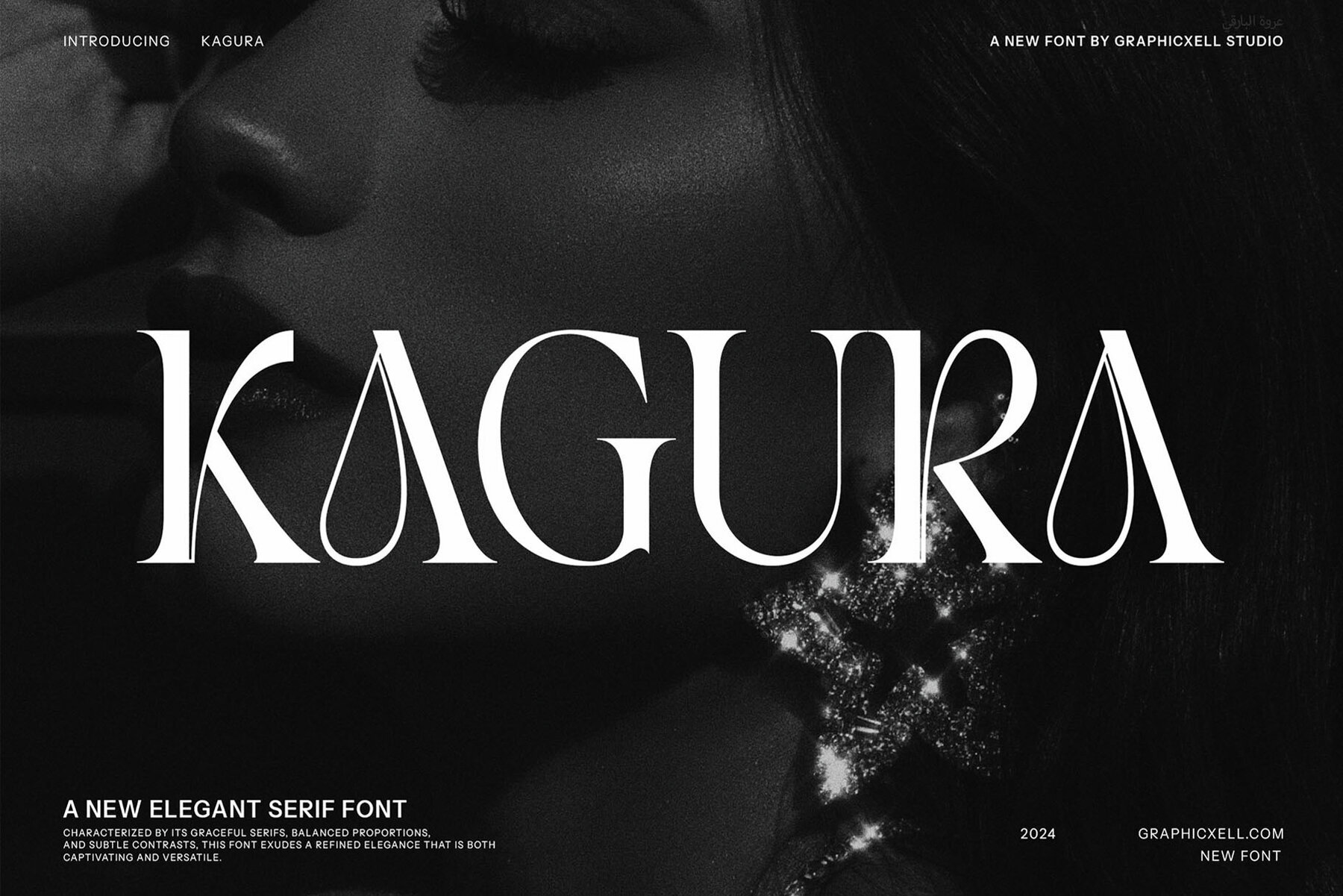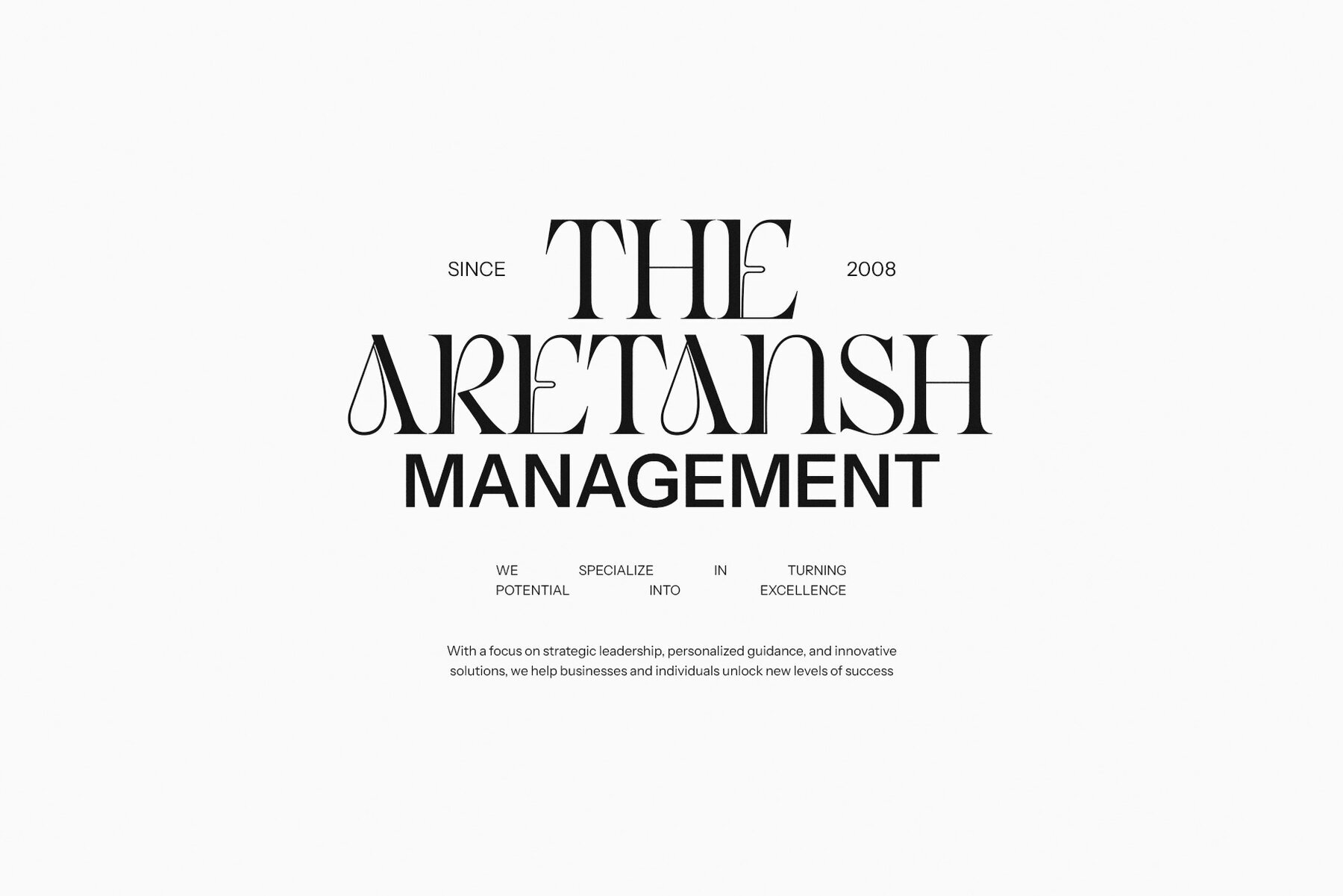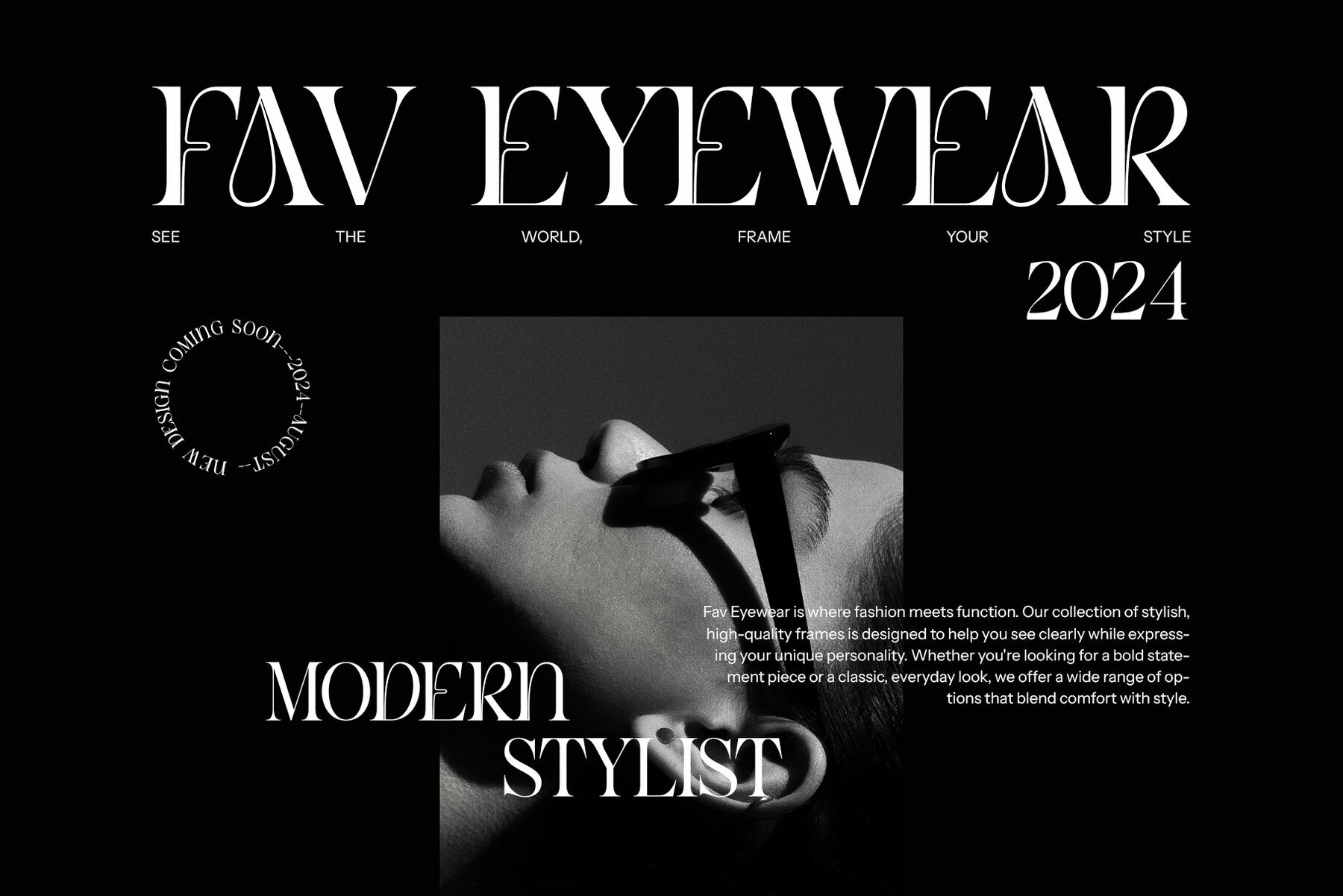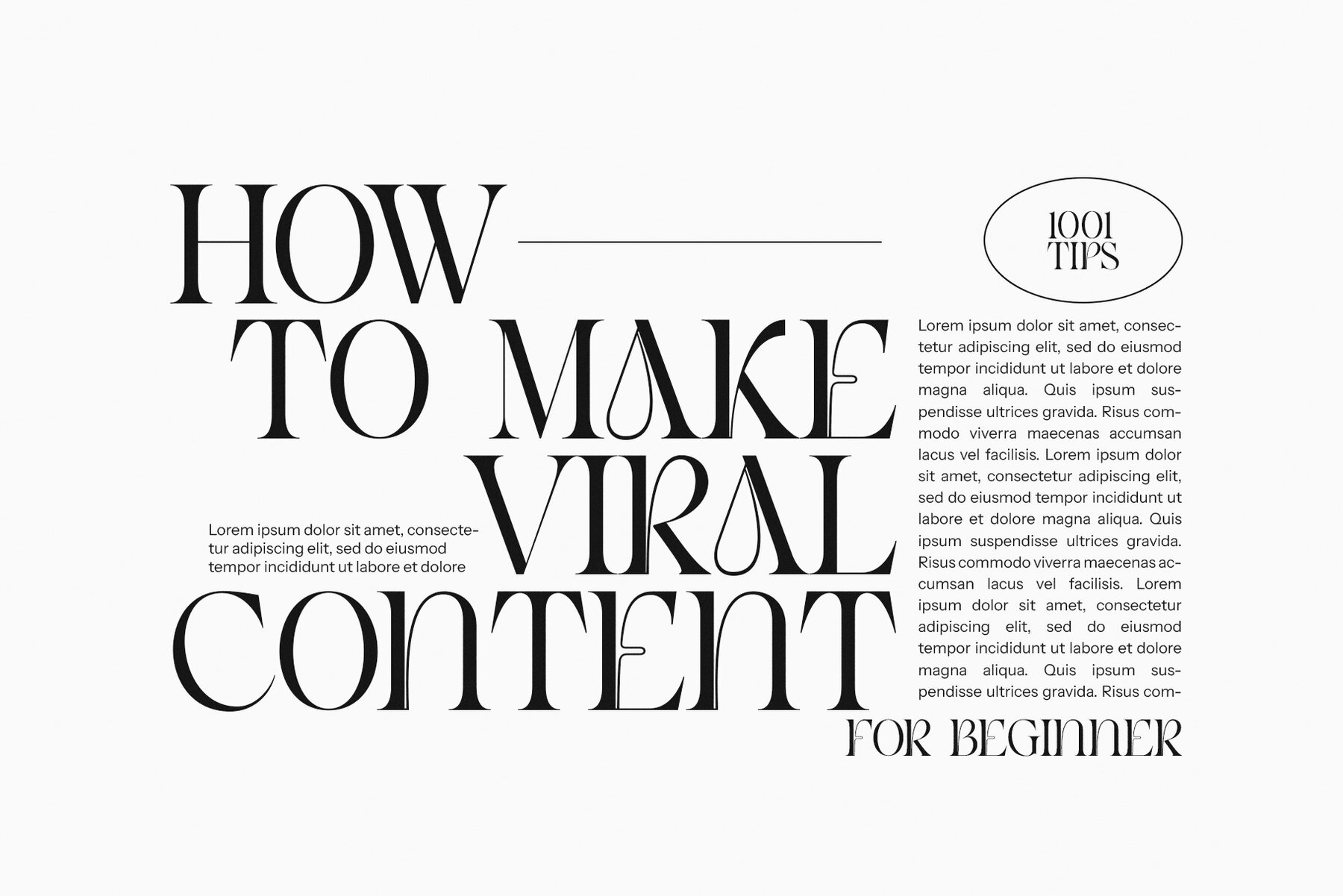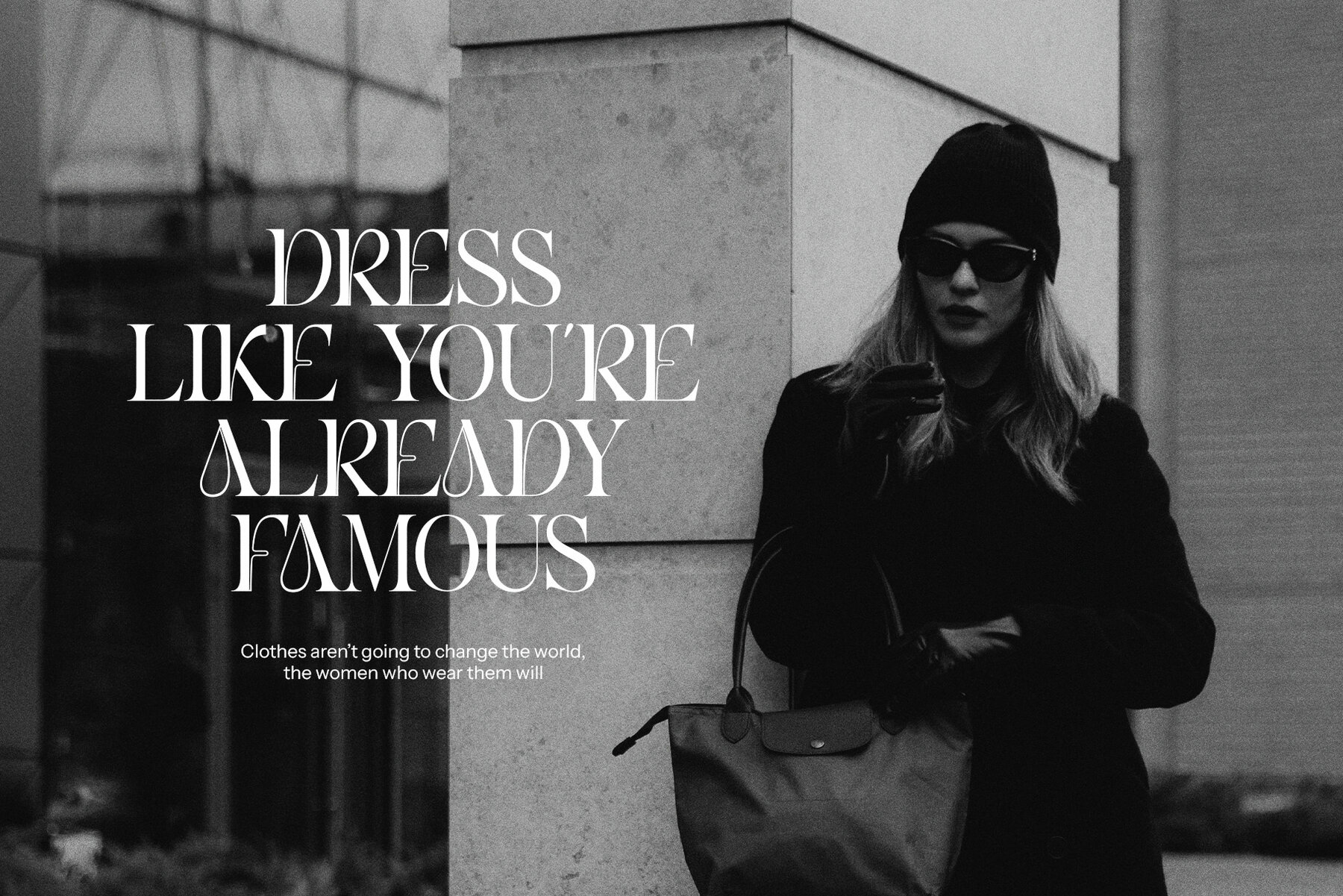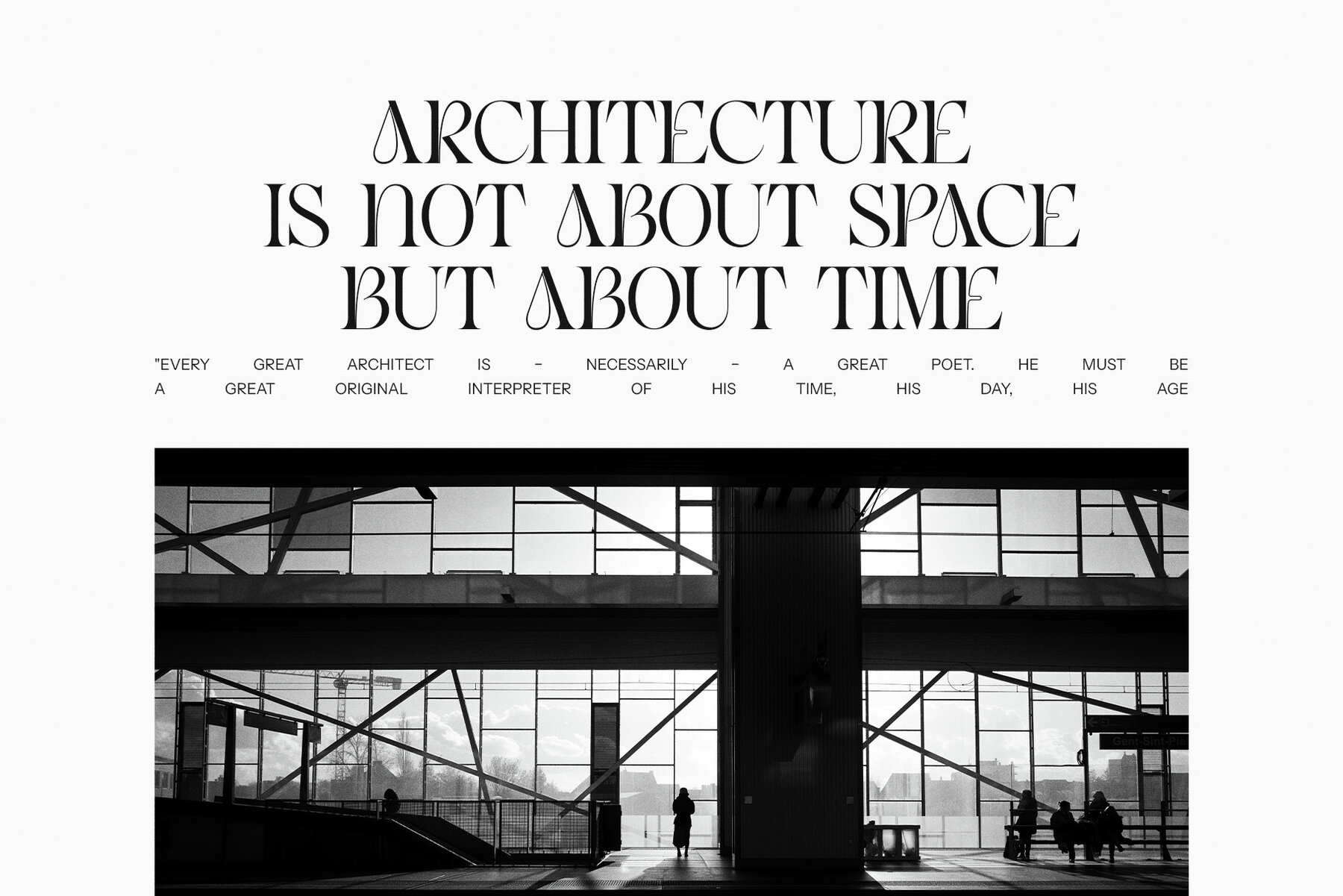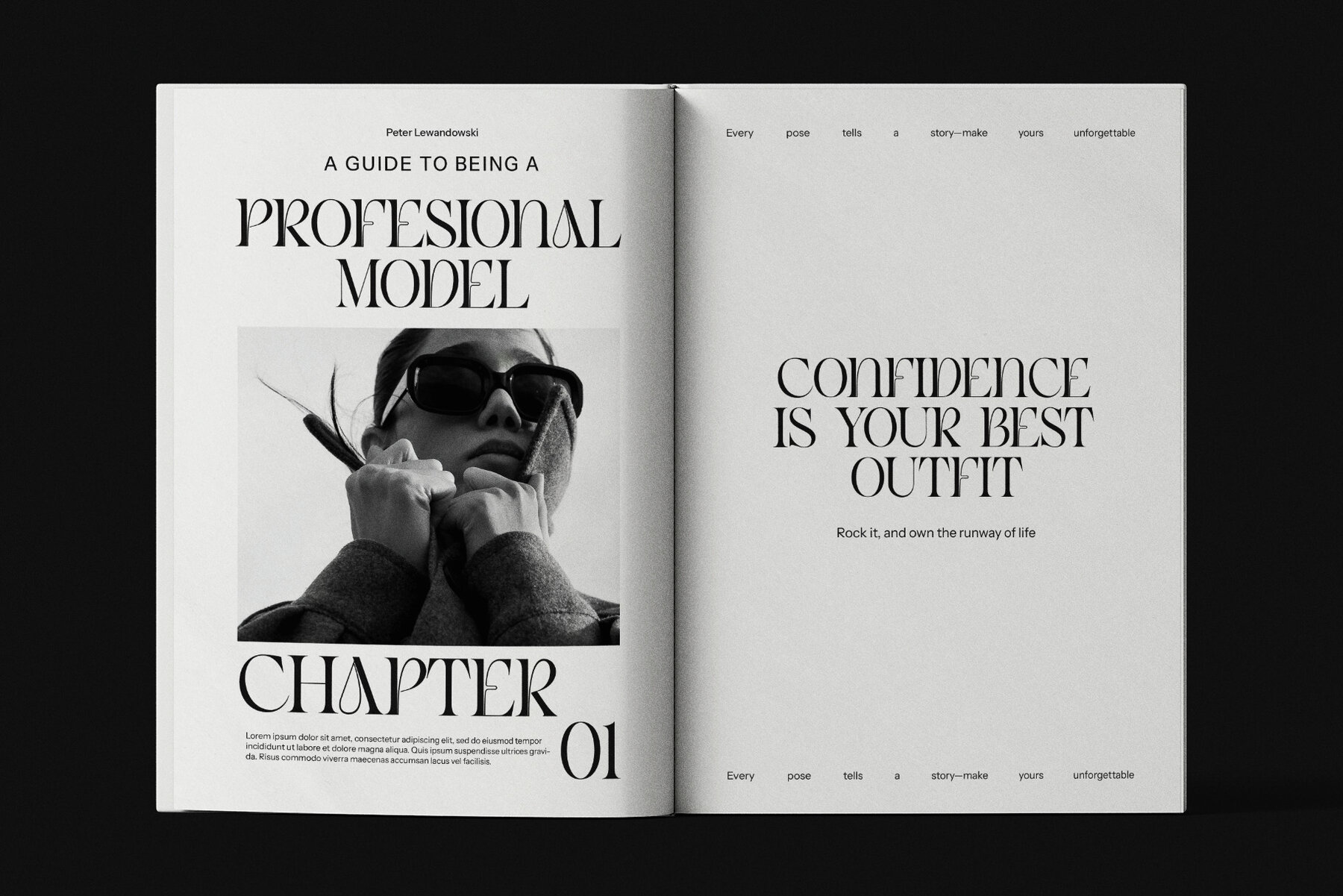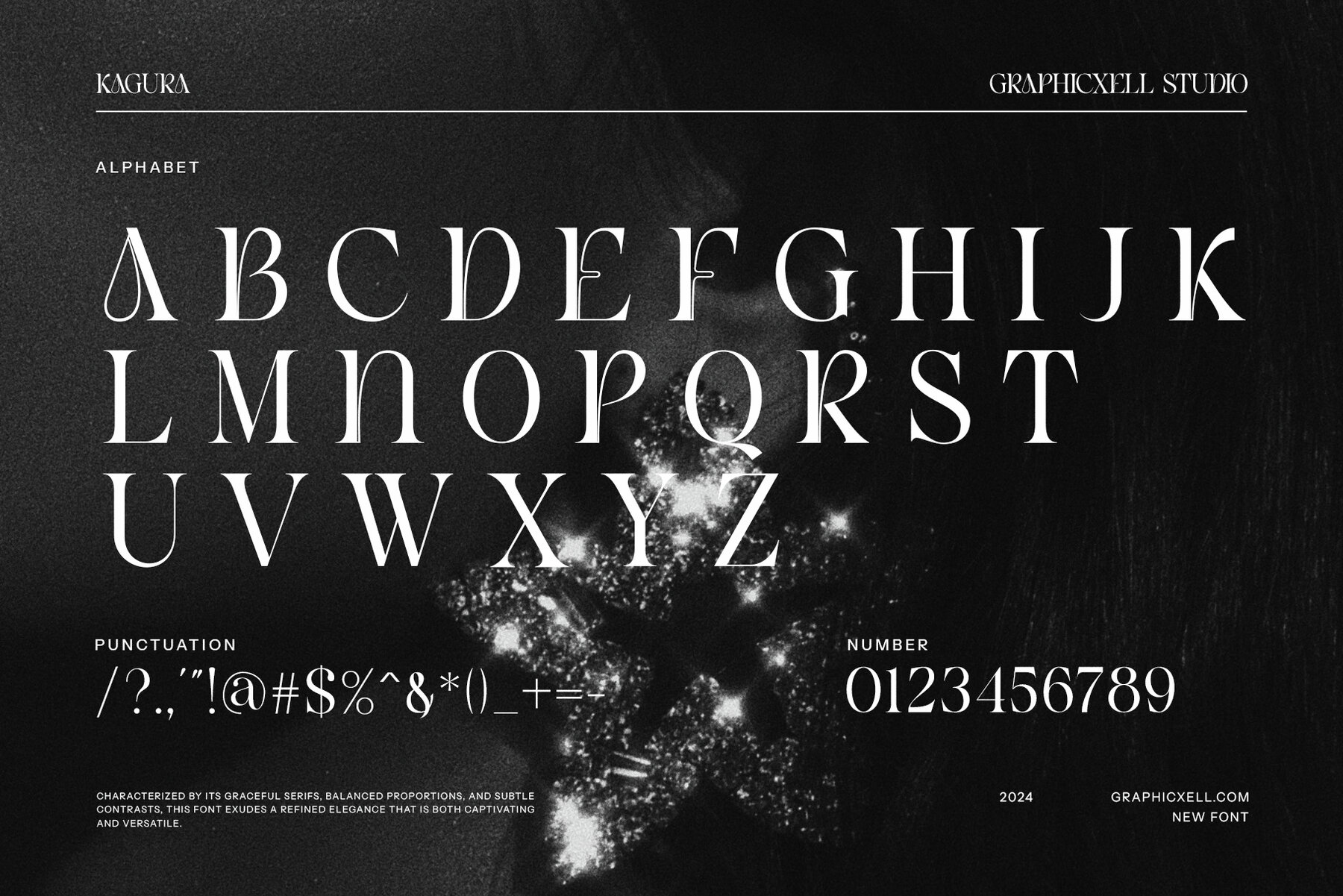
Kagura Font
Kagura
Kagura Unique Serif Font is a sophisticated serif typeface that blends classical elegance with contemporary design. It offers a fresh approach to traditional serif typography, distinguished by its stylish letterforms infused with unique character. The font boasts elegantly crafted serifs that achieve a harmonious balance between boldness and subtlety, ensuring both readability and aesthetic appeal. Its structure features flowing lines and gentle curves, making it an optimal choice for projects aiming to project refinement without losing personality.
This font's adaptability is one of its key features, allowing for dynamic text pairings that create visual harmony. Kagura is versatile, fitting multiple design contexts from formal to creative settings. Its sophisticated allure makes it highly effective for logo designs, creating distinct and memorable branding that stands out. Additionally, Kagura shines in editorial layouts, providing impactful headings and readable body text. It’s an ideal choice for lifestyle and fashion publications. In product packaging, it adds a luxurious touch, enhancing the perception of premium quality in diverse products, from gourmet foods to high-end cosmetics. Overall, Kagura fosters an aesthetic and emotional connection that can enhance brand storytelling and captivate audience engagement.